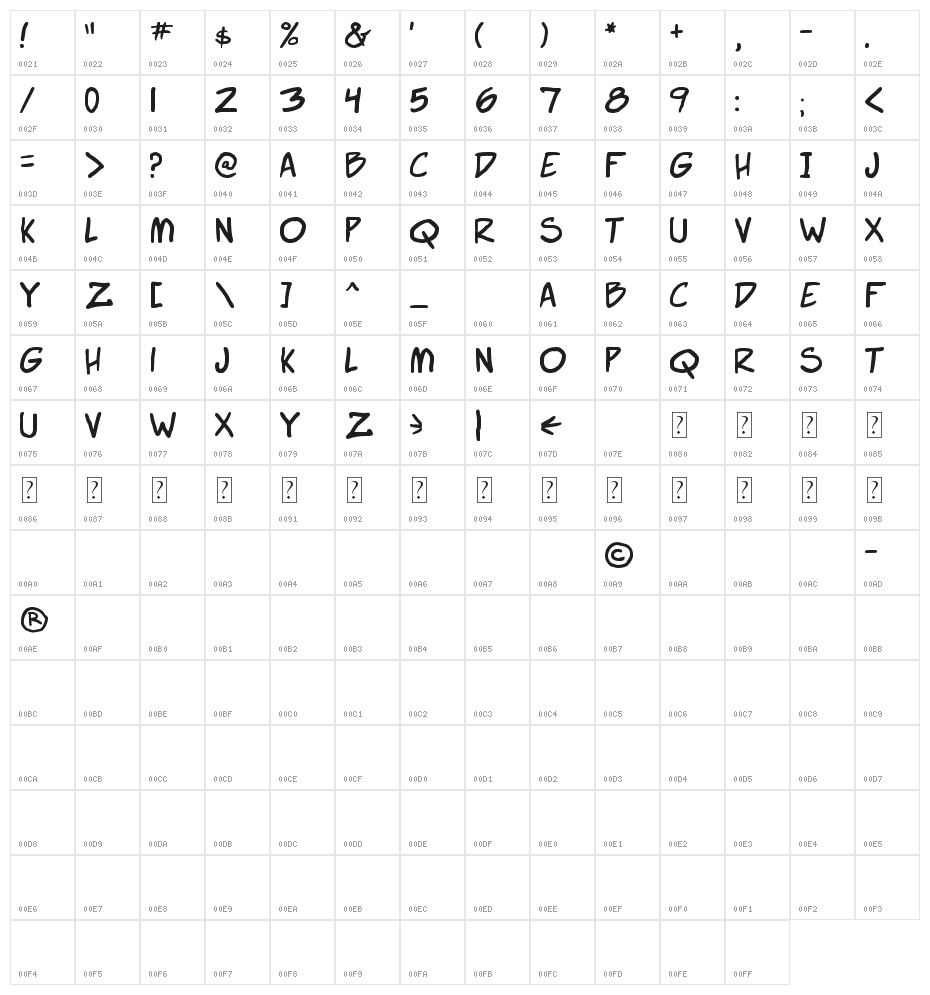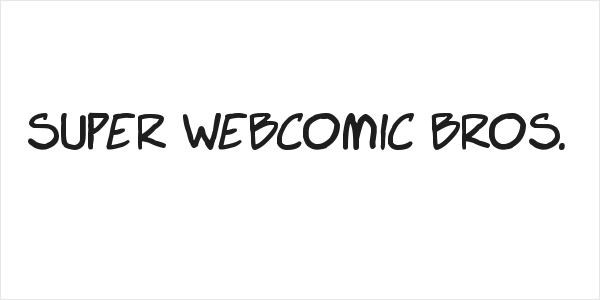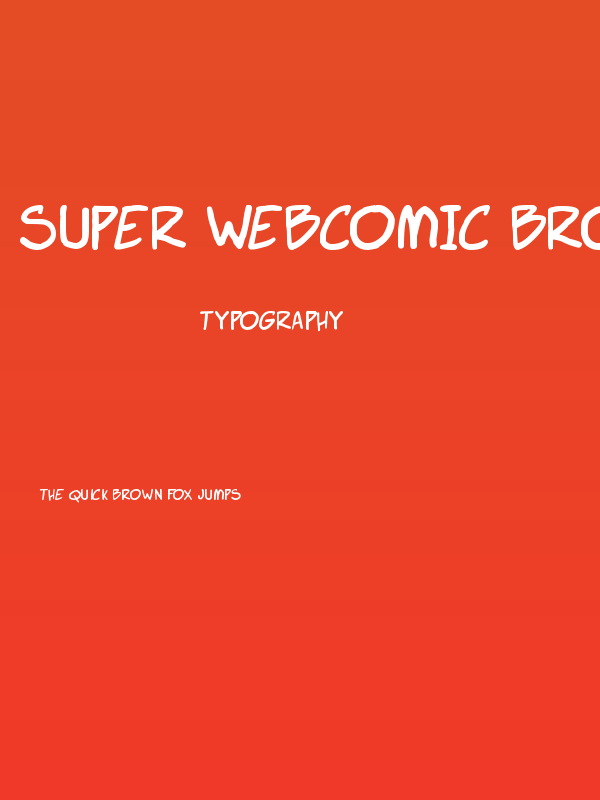
Super Webcomic Bros. Font
| Gesamtstil | Playful |
| Anwendungsfall | Headlines, Logos, Informal text |
| Vorgeschlagene Projekte | Ideal for comic books, children's stories, playful branding, and casual invitations. |
Super Webcomic Bros.